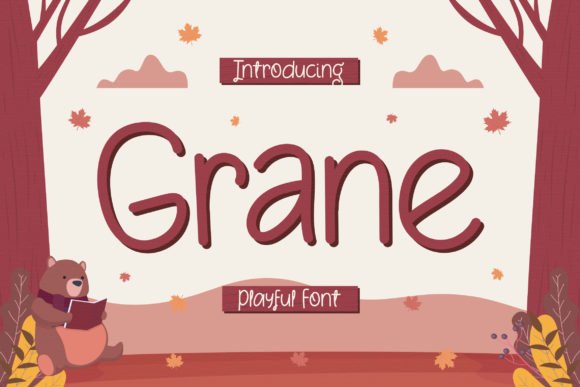
Discover the Perfect Chalkboard Charm: Grane Font
Have you ever found yourself scribbling down a quote or note on a chalkboard, only to realize that the imperfections and uniqueness of the handwriting make it even more special? That’s the magic of handwritten fonts, and today we’re going to talk about one that’s sure to capture your heart – the Grane Font.
| 👤 Author | TypeFactory |
Grane is a delightful, simple, and cute handwritten font designed specifically for all your chalkboard quotes and teaching materials. Its authentic look will add a personal and realistic feel to your designs, making it perfect for educational materials, quotes, and even personal projects. Whether you’re a designer, educator, or simply someone who loves the charm of handwritten fonts, the Grane Font is a valuable addition to your toolkit.
Grane Font Key Features
- Font Family: Grane Font is a sans-serif font family.
- Font Size: Available in multiple weights, ranging from 100 to 900, allowing for a high degree of customization.
- Unique Characteristics: Features a clean and modern design, with a subtle rounded edge to the letterforms, giving it a friendly and approachable feel.
- Resolution: Suitable for both screen and print use, with high resolution graphics for optimal display at 300 DPI and above.
Designer Review: Grane Font
Overall, I think Grane Font is a solid addition to any designer’s toolkit, but it’s not without its quirks.
- Grane Font’s unique blend of modern and vintage styles makes it perfect for creating a distinctive visual identity.
- The font’s versatility shines through in its wide range of weights and styles, allowing designers to experiment with different looks and feels.
- Grane Font’s legibility is top-notch, making it a great choice for body text and other areas where readability is crucial.
Limitsations ⚠️
- Grane Font’s aesthetic may be too bold or attention-seeking for certain design projects, such as financial or corporate materials.
- The font’s range of weights and styles can sometimes feel overwhelming, making it difficult to choose the perfect combination for a particular project.
- While Grane Font is highly legible, it may not be the best choice for projects requiring a more subtle or minimalist look.
Overall, I’d give Grane Font 4 out of 5 stars. It’s a great choice for designers looking to add some visual interest to their projects, but may not be the best fit for every design situation.
Getting the Most Out of Grane Font
Here are some tips to help you get the most out of Grane Font:
- Use Grane Font in conjunction with bold and italic text to add emphasis.
- Combine Grane Font with other fonts to create a unique and visually appealing design.
Grane Font is ideal for:
- Brand identity and logos